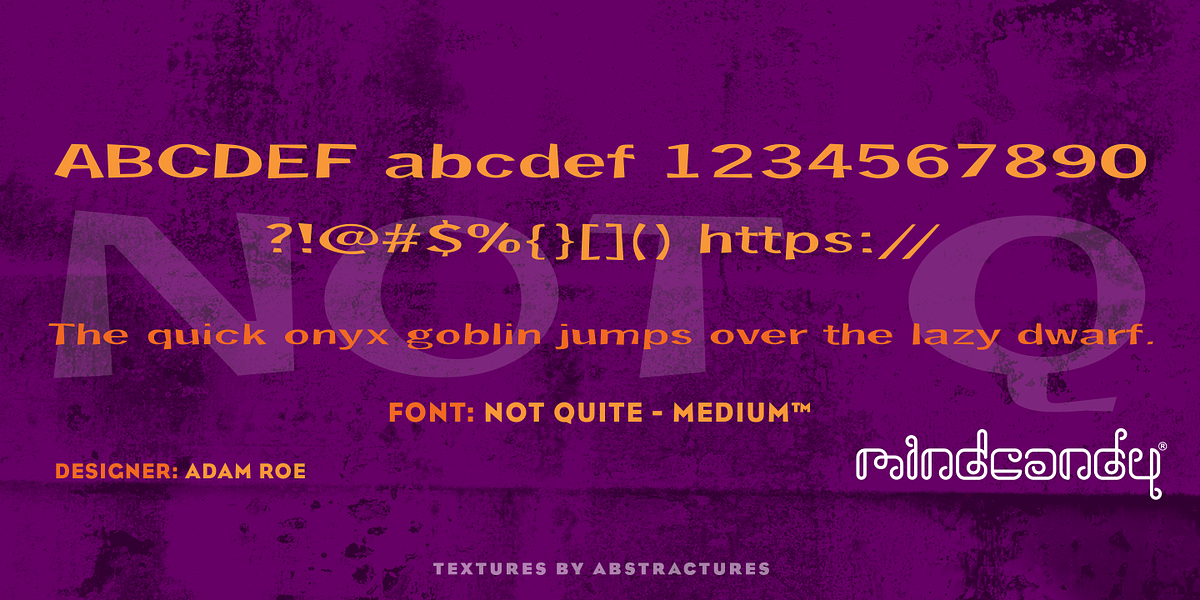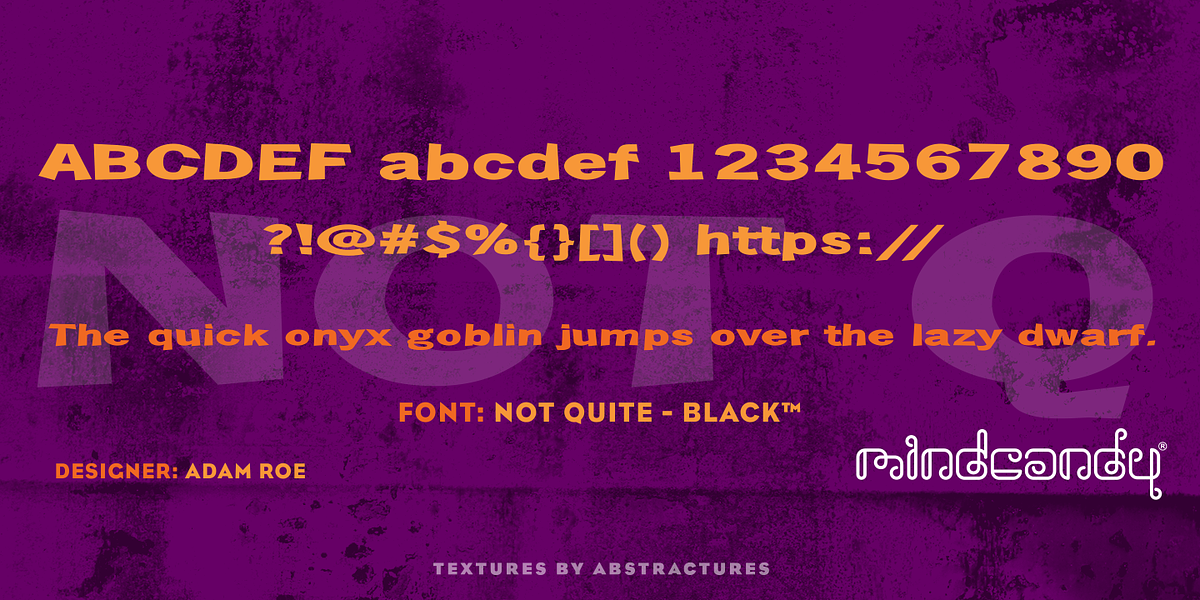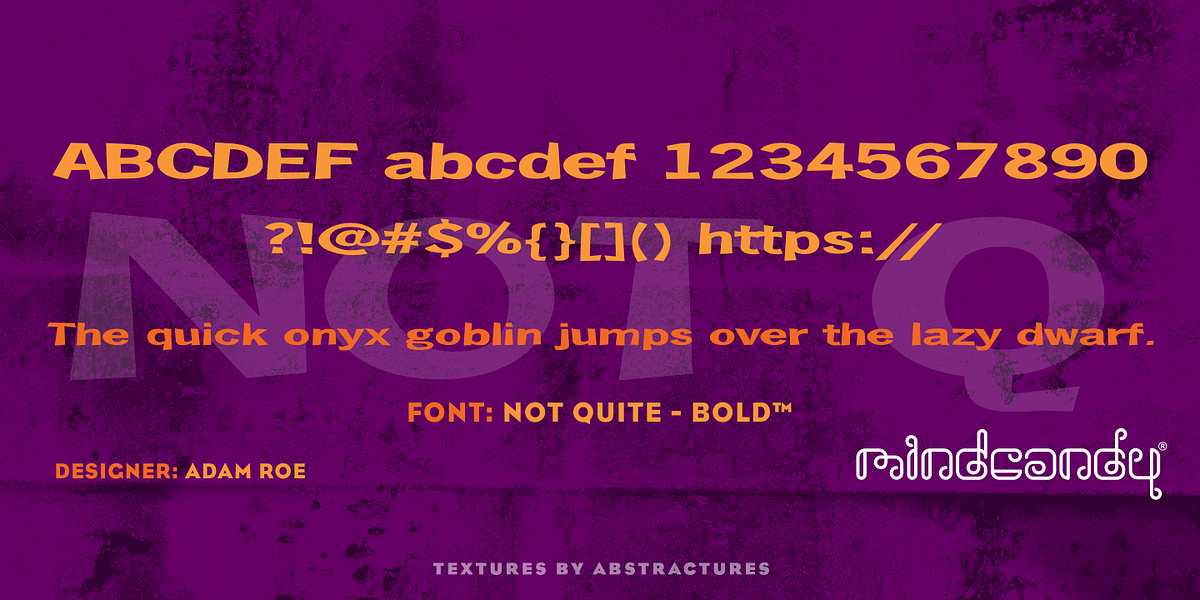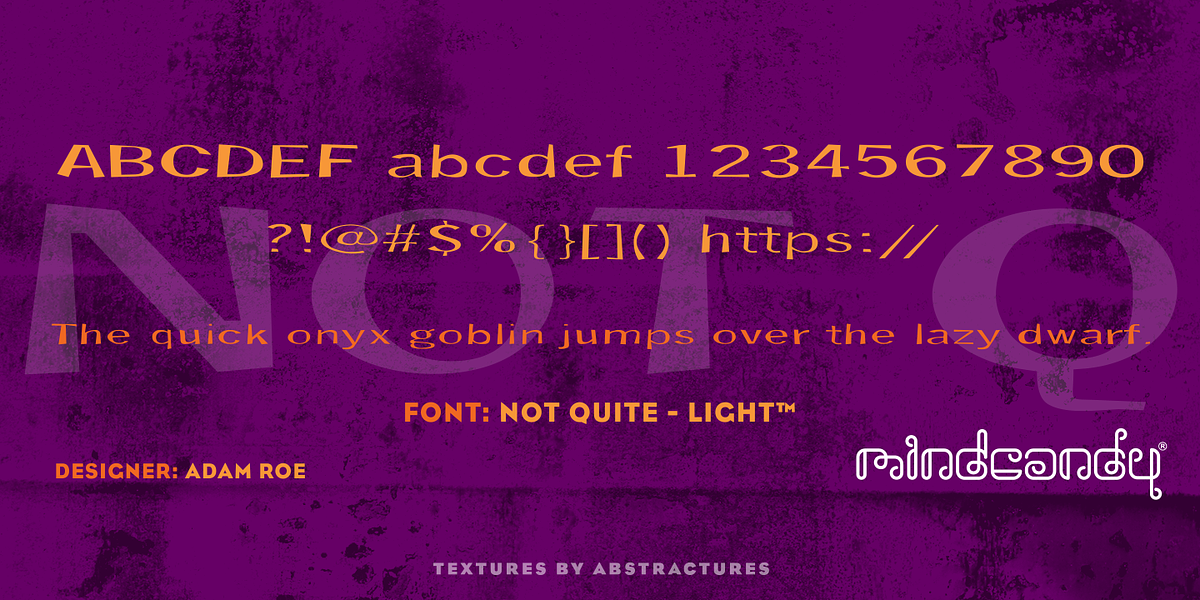
Not Quite™
This display font evokes a charming handmade quality with its cut-paper inspired design. The geometric shapes and playful curves make it ideal for projects targeting a younger audience, such as children's books, posters, or playful branding.